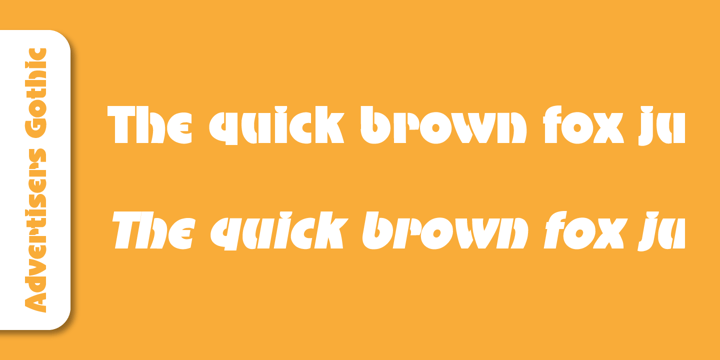
Advertisers Gothic
von SoftMaker
Die Schriftfamilie Advertisers Gothic wurde von entworfen und von SoftMaker veröffentlicht. Advertisers Gothic enthält 2 Stile und Familienpaketoptionen.
With Advertisers Gothic, SoftMaker revives a 1917 design by Robert Wiebking. Inspired by Art Nouveau (Jugendstil) lettering, this typeface is as fresh as it was back then and is well-suited for advertising and display work.